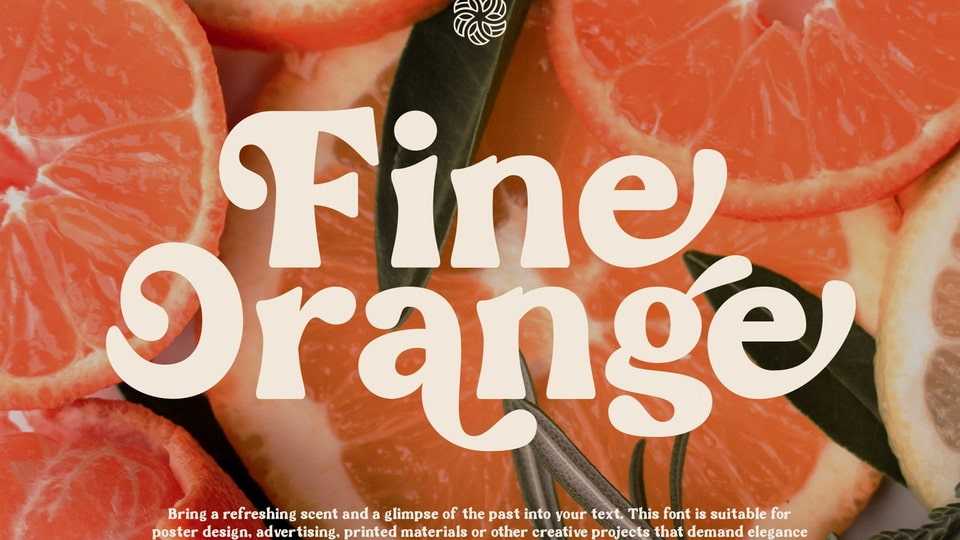
Download Fine Orange font, a delightful and versatile serif typeface that effortlessly combines modern retro aesthetics with a touch of humility and friendliness.